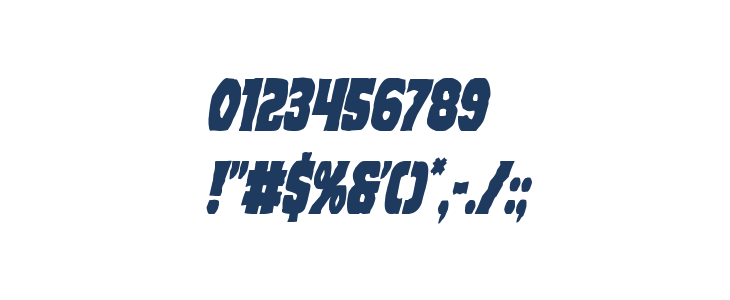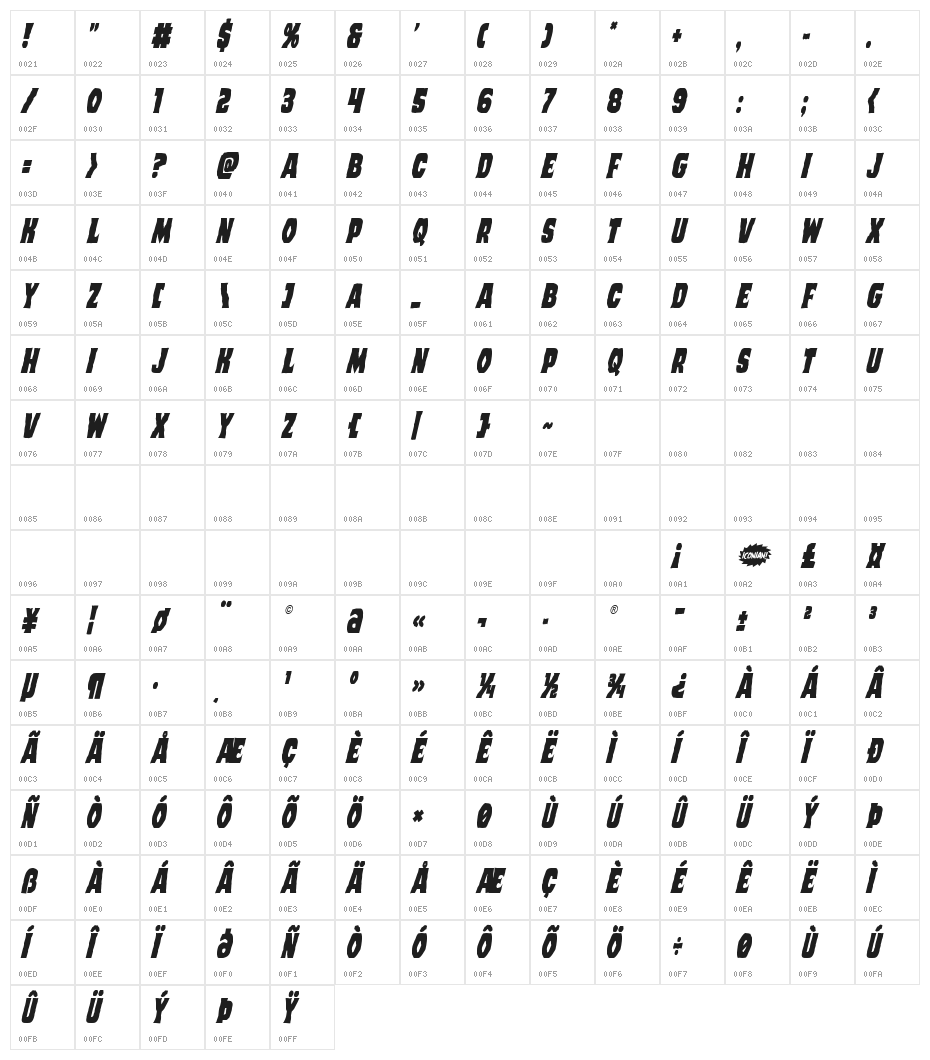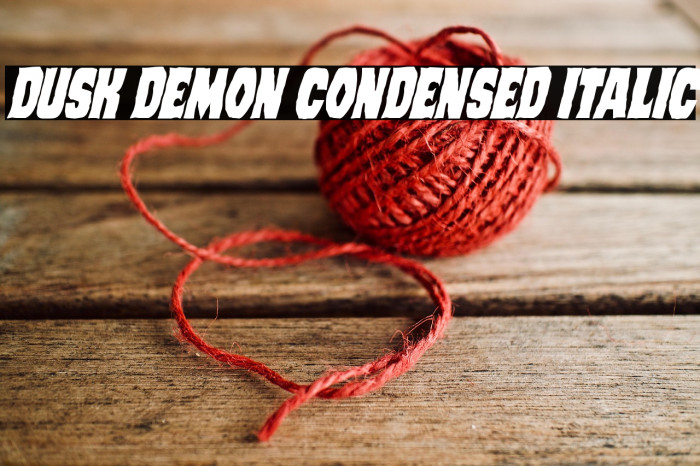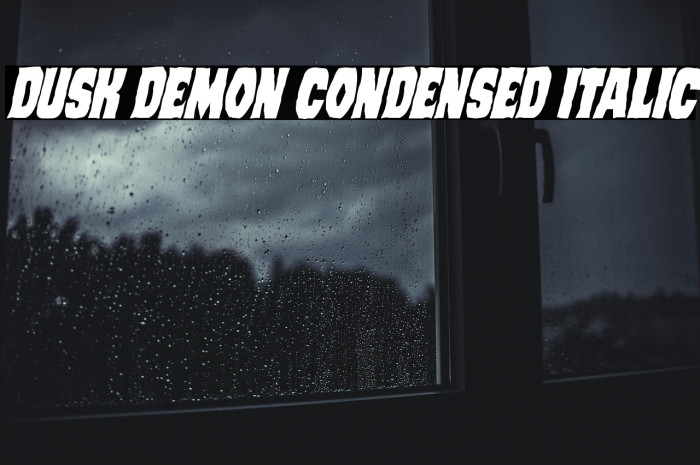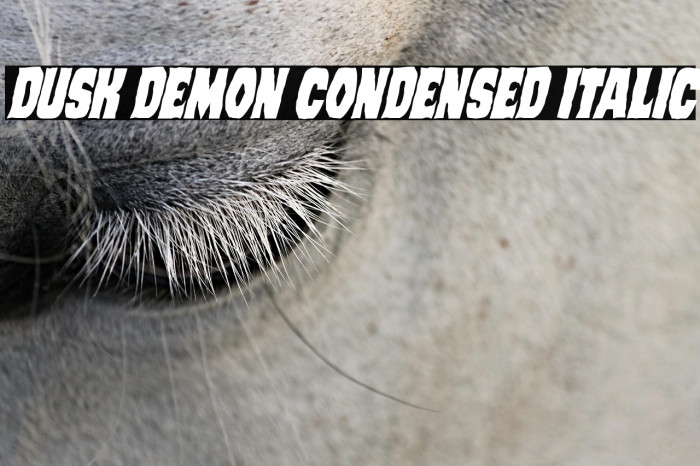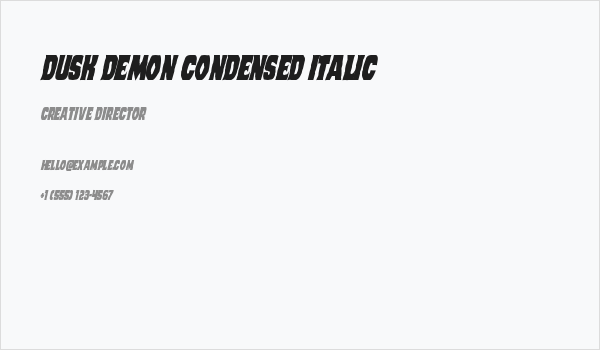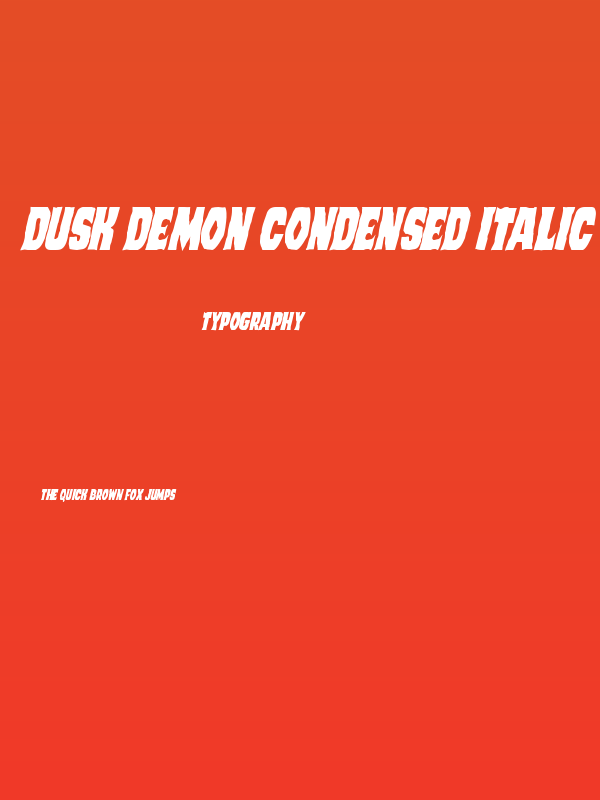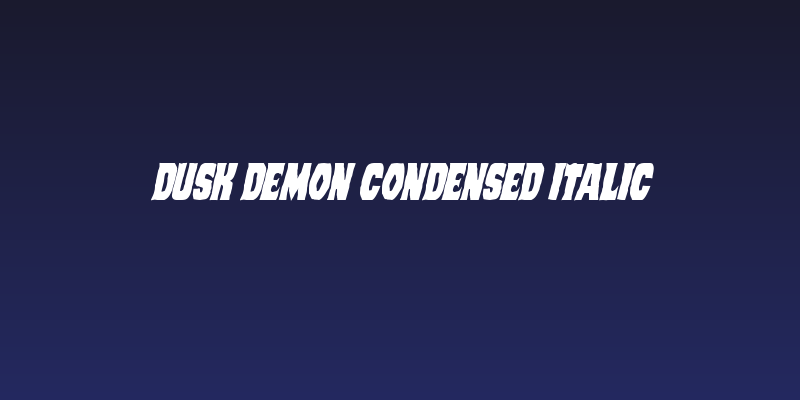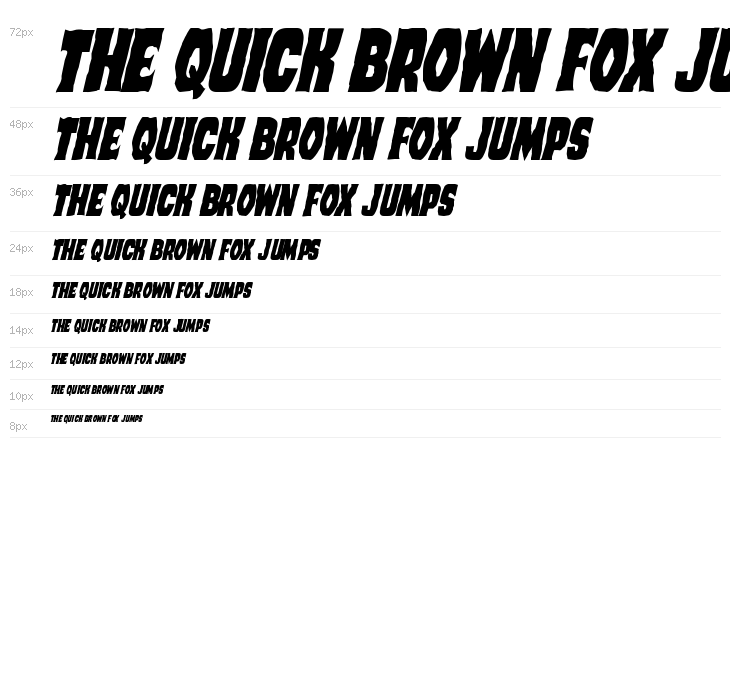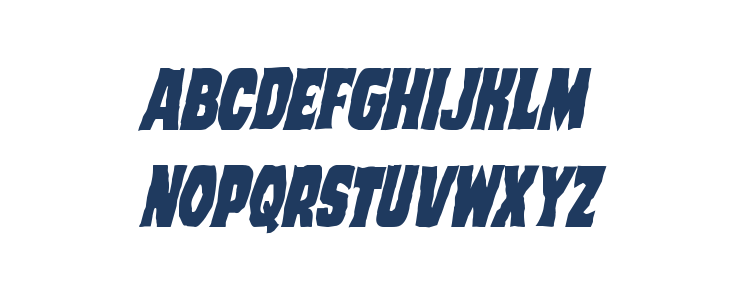
Dusk Demon Condensed Italic Font
Dusk Demon Condensed Italic Description
This font features a bold and dynamic style with a condensed and italicized form, giving it a sense of movement and energy. The characters are robust and slightly slanted, contributing to a feeling of urgency and intensity. The strokes are thick, with sharp edges and a slight curvature that adds a unique flair. The overall design is striking and attention-grabbing, making it suitable for impactful headlines or titles. The numbers and special characters maintain the same bold and italicized characteristics, ensuring consistency across all elements.
| Proposed Projects | Ideal for projects requiring a strong visual impact such as posters, movie titles, video game covers, or branding for edgy products. |